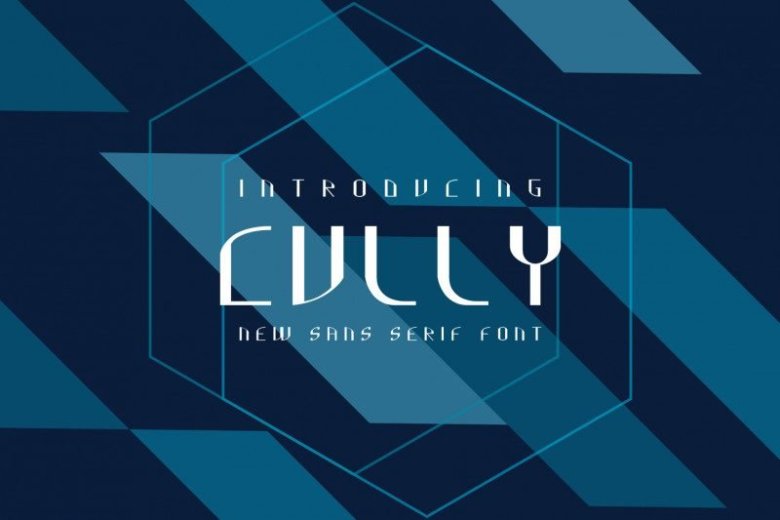
Cully Typeface
Hi Guys. Let us take you to the future! Introducing “Cully Typeface” – A Futuristic Exclusive Font. Made for anyone with positive vibes, optimism and futuristic vision.